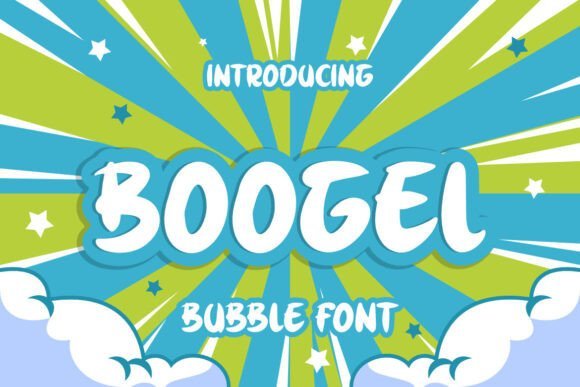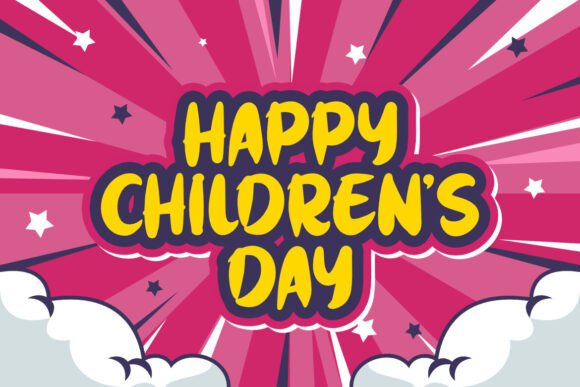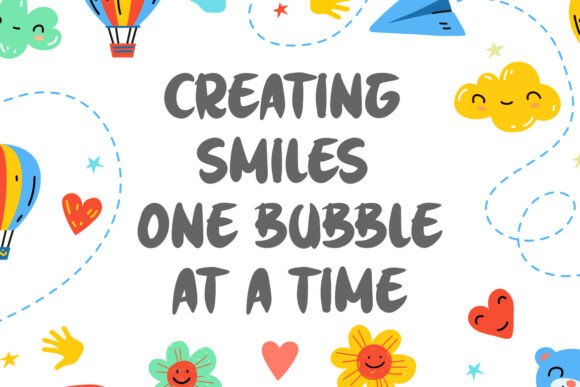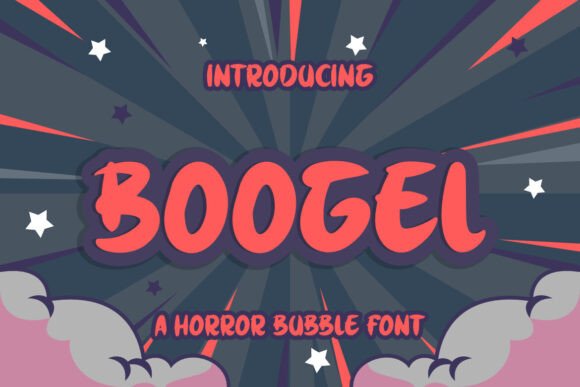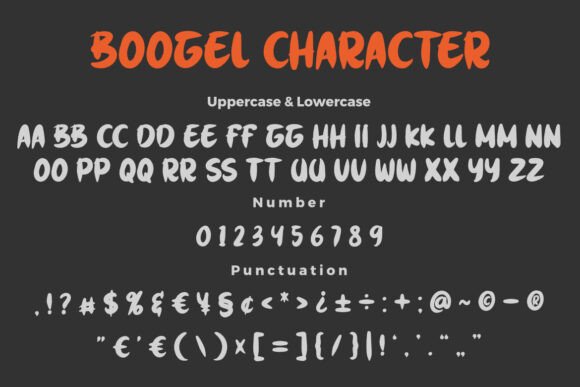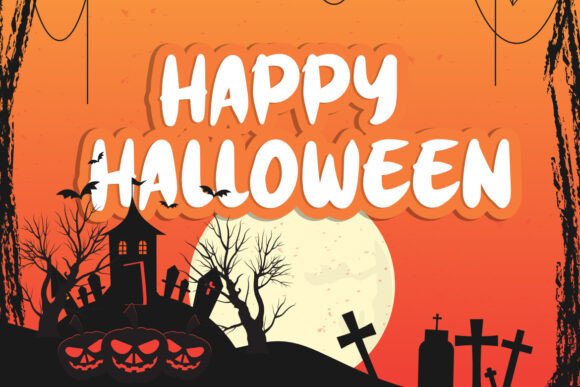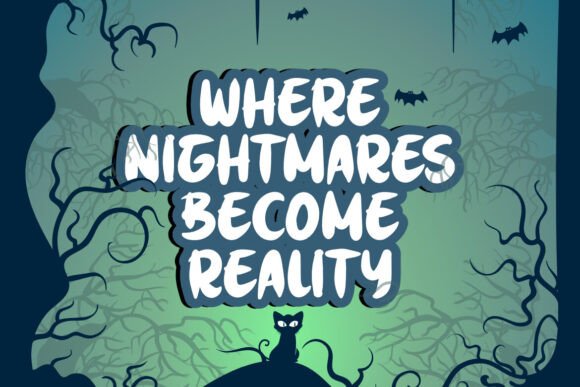
Have you ever been brainstorming a new idea, surrounded by scribbled notes, coffee cups, and a blank canvas staring back at you? That’s when the magic happens – the spark of creativity that sets your imagination ablaze. And what’s the first thing that comes to mind? A beautiful, eye-catching design that perfectly captures the essence of your idea.
That’s where the Boogel Font comes in – a high-quality, premium font designed to elevate your flyers, quotes, posters, banners, packaging, merchandise, logotypes, and more. As a designer, you know how crucial the right font can be in making your work stand out from the crowd. With Boogel Font, you’ll have the perfect tool to bring your creative vision to life.
Key Features of Boogel Font
- Character Set: The font contains a comprehensive set of characters, including uppercase and lowercase letters, numbers, punctuation marks, and special symbols, making it suitable for various types of text.
- Unique Characteristics: Boogel Font features a playful, handwritten style with irregular line widths and subtle imperfections, giving it a distinctive and eye-catching appearance.
Designer Review: Boogel Font
I recently had the chance to work with the Boogel Font, and I must say it’s been an interesting experience. Here are my honest thoughts:
- Unique aesthetic: Boogel Font has a distinctive, quirky look that can add a touch of whimsy to any design.
- Good for headings: The font’s bold, playful nature makes it well-suited for headings and titles.
- Customization options: The font offers a range of styles and weights, allowing for some flexibility in terms of customization.
- Readability issues: In certain contexts, the font’s bold lines and irregular shapes can make it difficult to read, especially for longer blocks of text.
- Lack of legibility: The font’s unique style can sometimes come across as sloppy or unrefined, which may not be suitable for more formal or professional designs.
Overall, I think Boogel Font is a fun and creative option for designers looking to add some personality to their work. However, it’s not without its limitations, and users should be aware of the potential readability issues and lack of legibility in certain contexts.
Getting the Most Out of Boogel Font
Here are some tips to help you get the most out of the Boogel Font:
- Combine the Boogel Font with other fonts to create a unique look.
- Use the font for headings and titles to create a bold statement.
The Boogel Font is ideal for:
- Creating eye-catching headings and titles.
- Designing playful and whimsical graphics.
- Adding a touch of personality to your branding and marketing materials.
Alternatives to “Boogel Font” for Designers
Great Vibes is a modern, cursive script font that is perfect for creating a friendly and approachable tone. It is ideal for use in invitations, greeting cards, and other design elements where a touch of elegance is desired.
Compared to Boogel Font, Great Vibes has a more refined and sophisticated look, making it a better choice for high-end designs. However, both fonts share a similar playful and creative vibe.
Carolyna Pro is a elegant and sophisticated script font that is perfect for use in luxury branding, invitations, and other high-end designs. It has a more refined and polished look compared to Boogel Font, making it a great choice for designers who want to create a sense of sophistication and elegance.
Compared to Boogel Font, Carolyna Pro has a more classic and timeless look, while Boogel Font has a more playful and creative vibe.